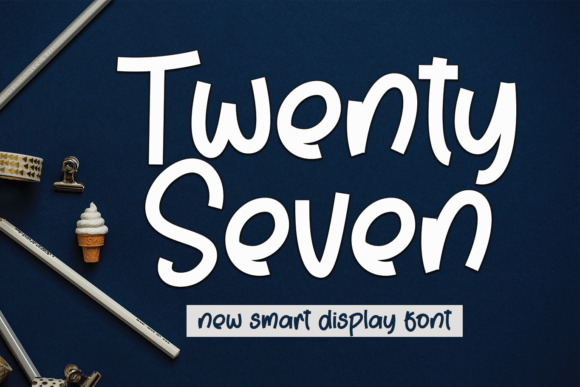
Unleash the power of Twenty Seven, a display font that will captivate your audience and ignite your creativity. Crafted by the masterful hands of Black Line, this typographic masterpiece is a visual symphony, ready to elevate your designs to new heights.
Twenty Seven is not merely a font; it's an artistic expression, a tool that empowers you to transform your ideas into breathtaking realities. Its meticulously crafted glyphs dance across the screen, inviting your imagination to soar. Each letter is a work of art, imbued with a sense of elegance and sophistication that will leave an unforgettable impression.
Whether you're a seasoned designer or just starting your creative journey, Twenty Seven is the perfect companion for your UI/UX endeavors. Its versatility knows no bounds, effortlessly adapting to a myriad of digital platforms. From sleek mobile apps to captivating websites, this font will elevate your designs, making them stand out from the crowd.
Imagine your website adorned with the exquisite curves and sharp angles of Twenty Seven. Your visitors will be mesmerized by the visual appeal, their eyes drawn to every meticulously placed letter. The font's readability and clarity ensure that your message will be conveyed with crystal-clear precision.
Twenty Seven is more than just a font; it's an investment in your creative vision. With its limitless possibilities, you can craft designs that not only look stunning but also leave a lasting impact. So why settle for ordinary when you can embrace the extraordinary?